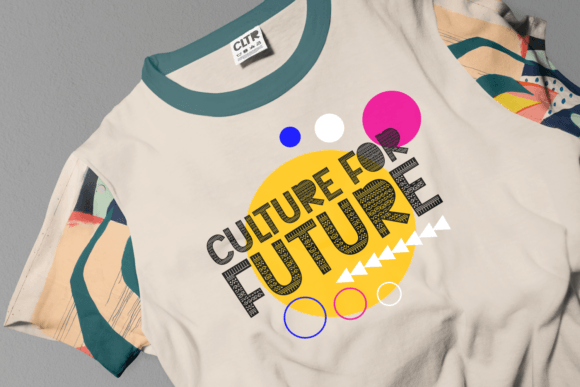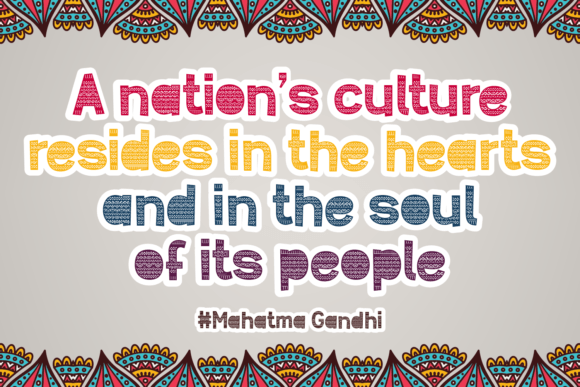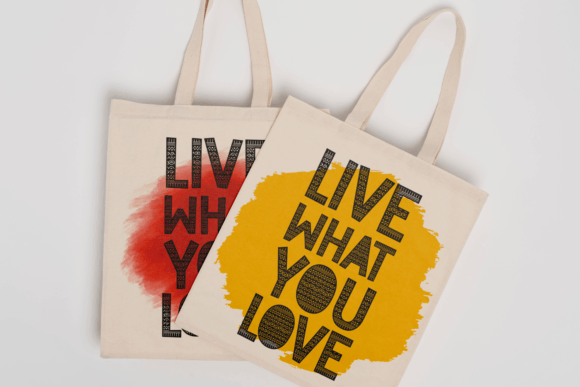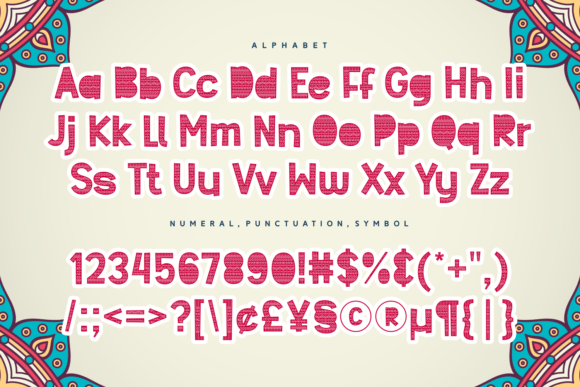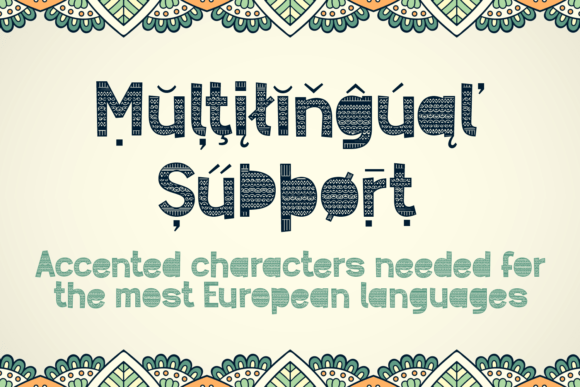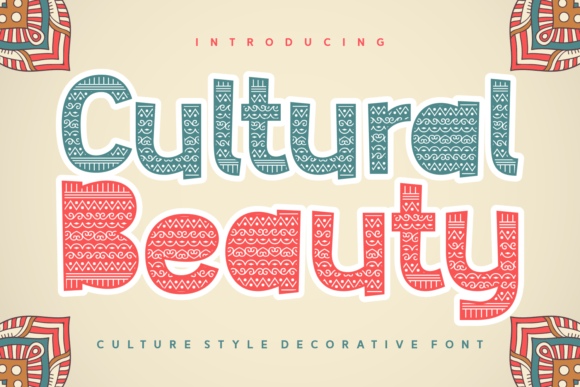
Cultural Beauty Font: Elevate Your Designs with Unique Decorative Patterns
In the world of typography, a font can make or break a design. It’s the perfect blend of form and function, conveying a message while captivating the audience’s attention. For designers and crafters looking to add a touch of elegance and individuality to their work, the Cultural Beauty Font is an exceptional choice. This incredibly unique decorative font features letters adorned with lovely creative patterns, setting it apart from more traditional typefaces.
What is Cultural Beauty Font?
Cultural Beauty is a distinctive decorative font that boasts an unparalleled level of creativity. Each letter is meticulously designed with beautiful, intricate patterns that add a touch of sophistication to any design project. Whether you’re working on a logo, a poster, a website, or any other visual material, this font is sure to make your work stand out from the crowd.
Key Features of Cultural Beauty Font
- Unique Decorative Patterns: The Cultural Beauty Font is characterized by its stunning decorative patterns that embellish each letter. These patterns are not only visually appealing but also add a layer of depth and complexity to your designs.
- Highly Versatile: This font is incredibly versatile, making it suitable for a wide range of design projects. From elegant wedding invitations to bold marketing materials, Cultural Beauty can adapt to any style or theme.
- Perfect for Branding: For businesses looking to establish a strong brand identity, the Cultural Beauty Font offers a unique opportunity to create memorable and impactful logos that reflect a brand’s personality.
Who Can Benefit from Cultural Beauty Font?
The Cultural Beauty Font is a valuable resource for a variety of professionals and enthusiasts, including:
- Graphic Designers: Looking for a unique font to add a distinctive touch to client projects.
- Web Designers: Seeking to create visually engaging websites with custom typography.
- Crafters and Makers: Working on DIY projects, such as handmade cards, invitations, or decorative items.
- Marketing Professionals: Aiming to create eye-catching advertising materials that stand out.
- Stationery and Journal Designers: Creating unique notebooks, journals, or stationery sets.
How to Use Cultural Beauty Font Effectively
To make the most of the Cultural Beauty Font, consider the following tips:
- Pair with Simpler Fonts: For optimal readability, pair Cultural Beauty with simpler fonts for headings and body text.
- Experiment with Colors: Take advantage of the font’s decorative nature by experimenting with different colors and gradients.
- Use on High-Quality Backgrounds: Ensure that the background complements the font’s intricate patterns to enhance visual impact.
- Consider the Theme: Tailor your use of the font to fit the theme or mood of your design project for a cohesive look.
The Cultural Beauty Font is a game-changer for designers and crafters looking to infuse their work with a touch of elegance and uniqueness. Its decorative patterns, versatility, and ease of use make it an invaluable tool in the world of design. Whether you’re aiming to create stunning visual materials, establish a strong brand identity, or simply add a creative flair to your projects, the Cultural Beauty Font is an excellent choice. Embrace the beauty of unique typography and elevate your designs to new heights.